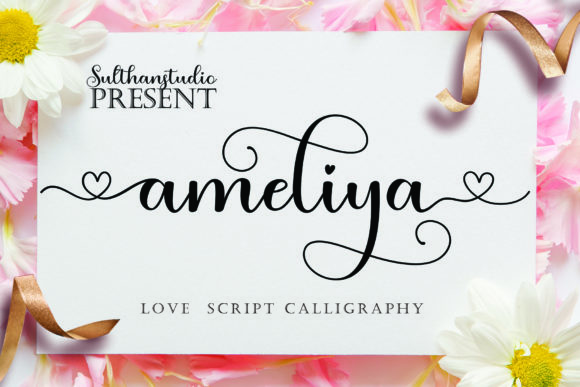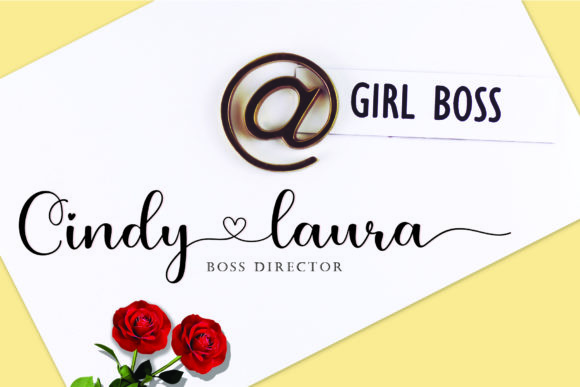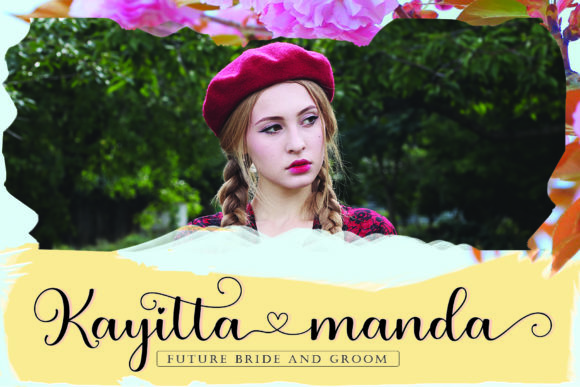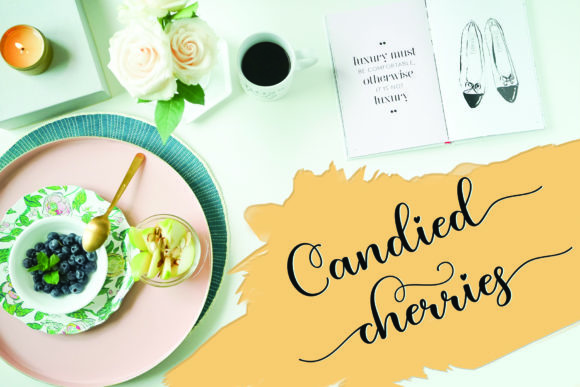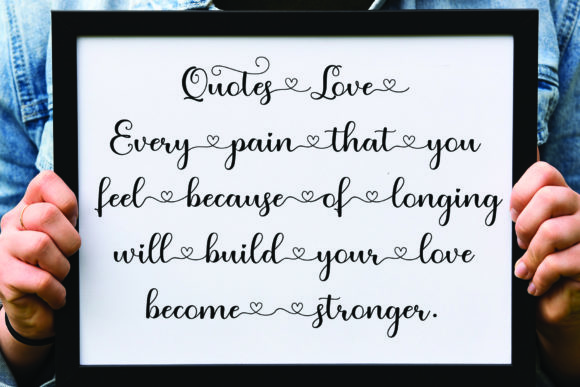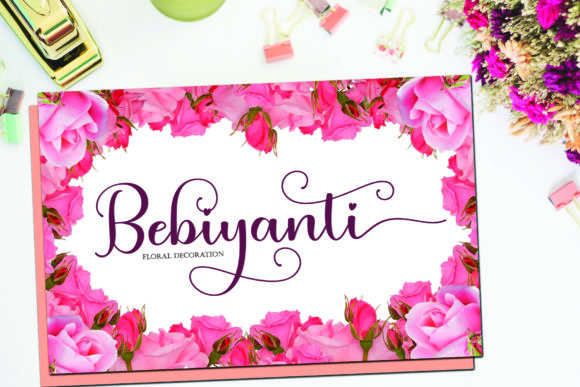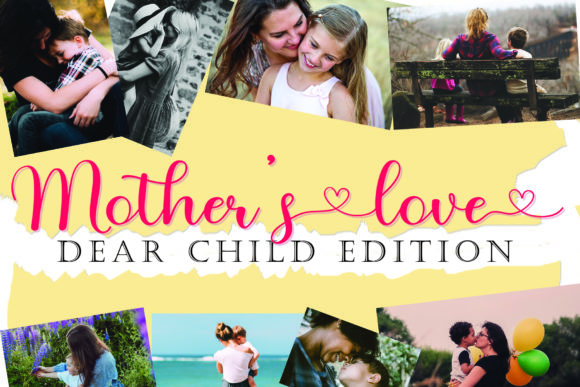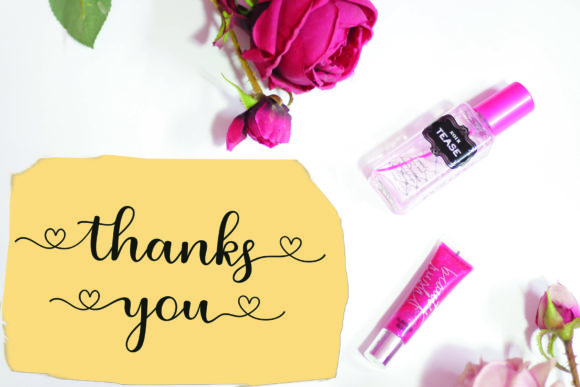
Ameliya Font
About Ameliya Font
Ameliya is a cute calligraphy font with hearts that can be connected on the front and back. It will add a romantic touch to any crafting project!